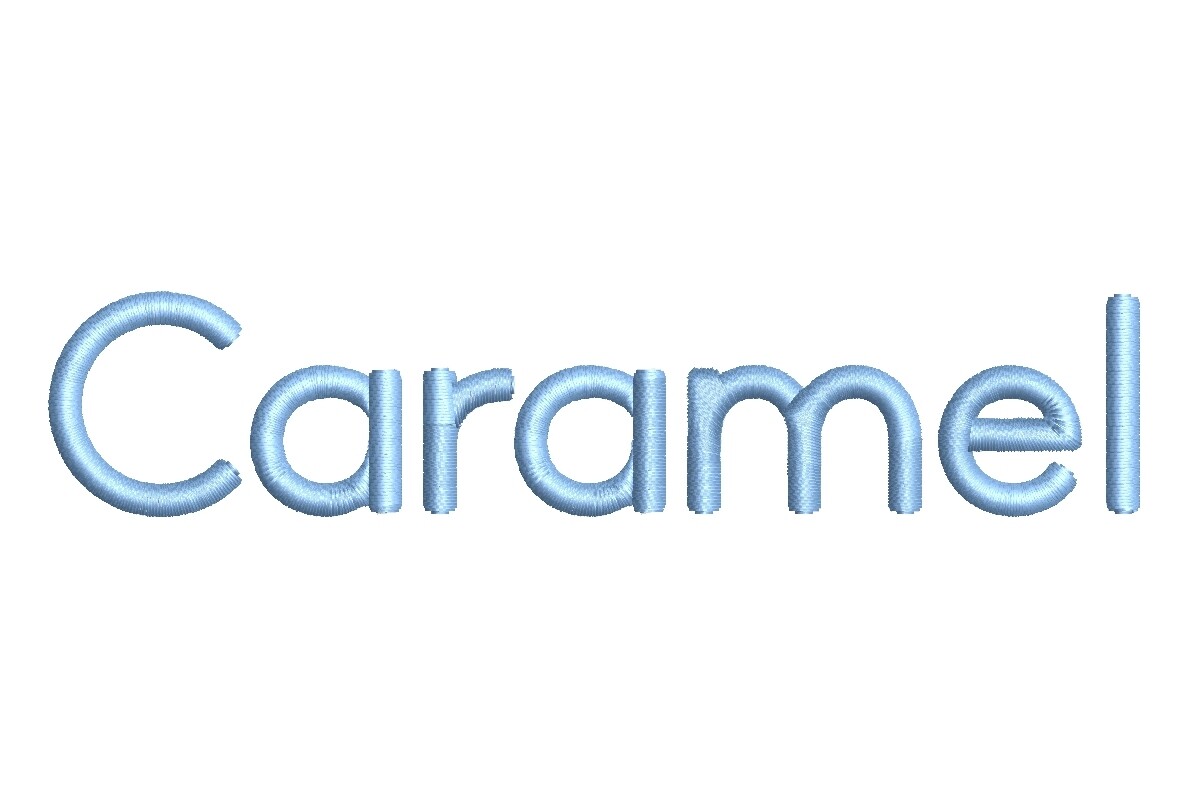
Introducing the Caramel ESA Font, your gateway to embroidery excellence. This premium font seamlessly integrates with Wilcom Studio e4.5.6 and Hatch 3 versions and beyond, offering unmatched compatibility. Whether you're an experienced embroiderer or a beginner, Caramel ESA simplifies your creative journey. Its seamless integration with Wilcom Studio and Hatch ensures easy digitizing and stitching. Crafted with precision, this font adds an element of charm and sophistication to your designs. Enhance your embroidery work and achieve exceptional results with the Caramel ESA Font. Elevate your projects with this versatile and stylish font. Order now and unlock your embroidery potential.